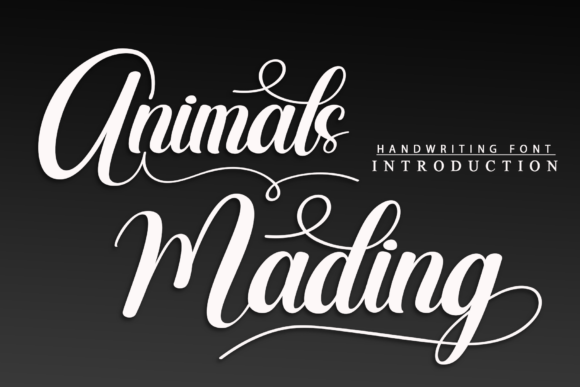
Animals Mading Font: A Beautifully Flowing Script Font for Elegant Designs
Are you looking for a font that exudes charm and sophistication? Look no further than Animals Mading Font. This beautifully flowing script font is perfect for creating elegant designs that make a lasting impression. With its smooth curves and handwritten feel, Animals Mading Font is ideal for a variety of design projects, from wedding invitations and personal branding to elegant packaging and romantic quotes.
Key Features of Animals Mading Font
- Smooth Curves: Animals Mading Font features smooth, flowing curves that give it a elegant and sophisticated look.
- Handwritten Feel: The font has a handwritten feel that makes it perfect for designs that require a personal touch.
- Script Style: Animals Mading Font is a script font that is perfect for creating elegant and flowing text.
- Charm and Sophistication: The font radiates charm and sophistication, making it perfect for high-end designs.
Using Animals Mading Font for Your Designs
Animals Mading Font is a versatile font that can be used for a variety of design projects. Here are some ideas for using this beautiful font:
- Wedding Invitations: Create beautiful and elegant wedding invitations that set the tone for the big day.
- Personal Branding: Use Animals Mading Font to create a sophisticated and elegant brand identity.
- Elegant Packaging: Add a touch of luxury to your packaging designs with this beautiful font.
- Romantic Quotes: Create stunning romantic quotes that are perfect for social media, Valentine’s Day, or any other occasion.
Design Tips for Using Animals Mading Font
Here are some design tips to help you get the most out of Animals Mading Font:
- Pair with Simple Backgrounds: Pair Animals Mading Font with simple backgrounds to make the text stand out.
- Use for Headlines: Use Animals Mading Font for headlines and titles to add a touch of elegance to your designs.
- Experiment with Colors: Experiment with different colors to find the perfect combination that complements the font.
- Keep it Simple: Keep your designs simple and elegant to let the font shine.
Benefits of Using Animals Mading Font
Here are some benefits of using Animals Mading Font for your designs:
- Unique and Elegant: Animals Mading Font is a unique and elegant font that will set your designs apart.
- High-Quality: The font is of high-quality and will make your designs look professional.
- Easy to Read: Animals Mading Font is easy to read, even in small sizes.
- Versatile: The font is versatile and can be used for a variety of design projects.
In conclusion, Animals Mading Font is a beautifully flowing script font that is perfect for creating elegant and sophisticated designs. With its smooth curves and handwritten feel, it’s ideal for wedding invitations, personal branding, elegant packaging, and romantic quotes. By following the design tips and using the font for your designs, you’ll be able to create stunning and professional-looking designs that make a lasting impression.